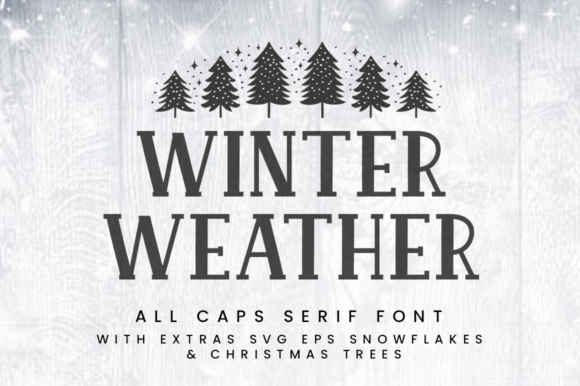
Prepare to be spellbound by Winter Weather Font, a captivating serif font family designed to ignite your creativity and elevate your designs to new heights. Step into a winter wonderland where imagination meets elegance, and transform your projects into masterpieces. With its bold all-caps solid and outline style, Winter Weather Font is a versatile chameleon, adapting seamlessly to a myriad of creative endeavors.
Unleash your inner artist and let Winter Weather Font cast its magic on your signage, Cricut projects, logos, crafts, and more. Its versatility knows no bounds, making it the perfect companion for a symphony of artistic expressions. But Winter Weather Font doesn't stop at versatility; it's a visual feast that captivates the senses with its intricate snowflakes and enchanting Christmas trees. These delicate details add a touch of festive charm, turning your designs into captivating works of art.
With Winter Weather Font, you'll embark on a creative journey where inspiration flows effortlessly and imagination takes center stage. Its crisp, clean lines and timeless character evoke a sense of nostalgia, transporting you to a simpler time where the magic of the holiday season filled the air.
It's not just a font; it's an experience that ignites your passion and fuels your creativity. Embrace the enchanting allure of Winter Weather Font and watch as your designs blossom into extraordinary creations that leave a lasting impression. Let your imagination soar and experience the true magic of font artistry.